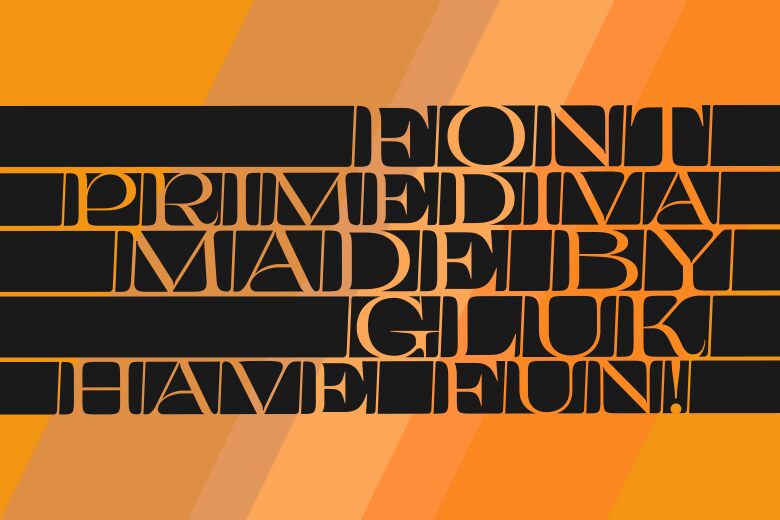
Primediva font is a negative decorative typeface designed by Gluk.
Decorative, header font with 2 stylistic sets: alternates A,P,R and "filled" space
Primediva